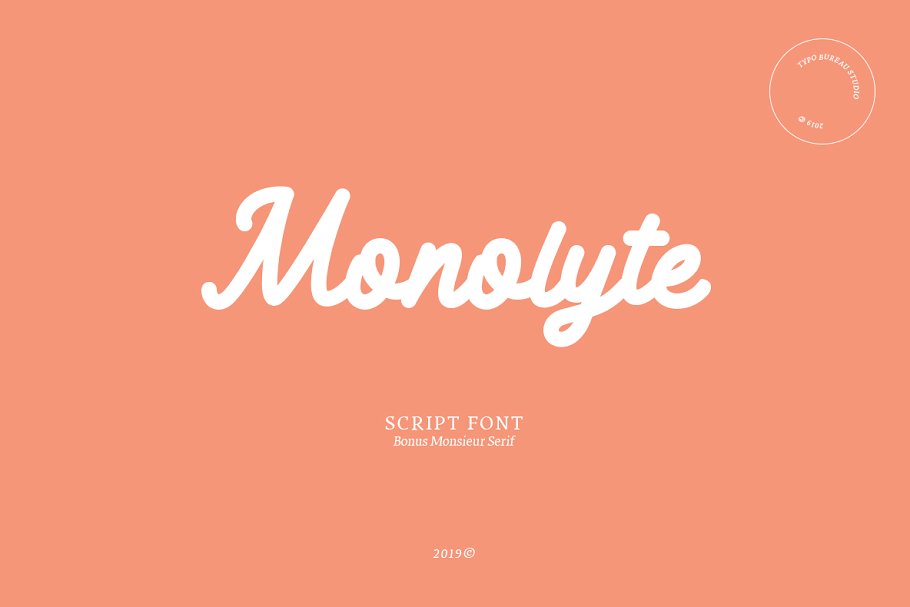
A beautiful monoline script font ideal for logos, branding, invitations, apparel, mockups, magazines, signage and more. Monolyte is a handmade monoline typeface with a clean, elegant feel — perfect for adding a polished, personal touch to your next project. Best of all, this free font comes with an Extended Commercial License and Central European language support.
Key Features
• Monoline script — handmade, clean strokes
• Uppercase characters
• Lowercase characters
• Italic style
• Numbers & punctuation
• Foreign language support (Central Europe)